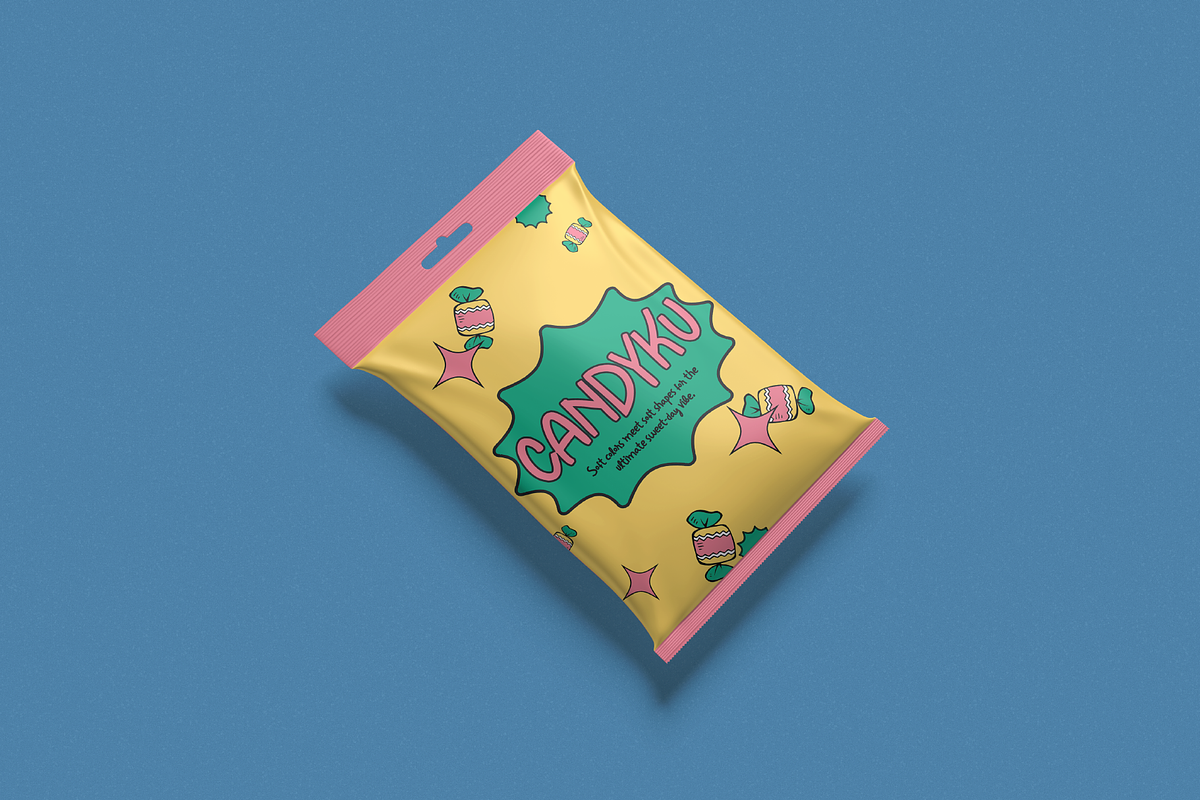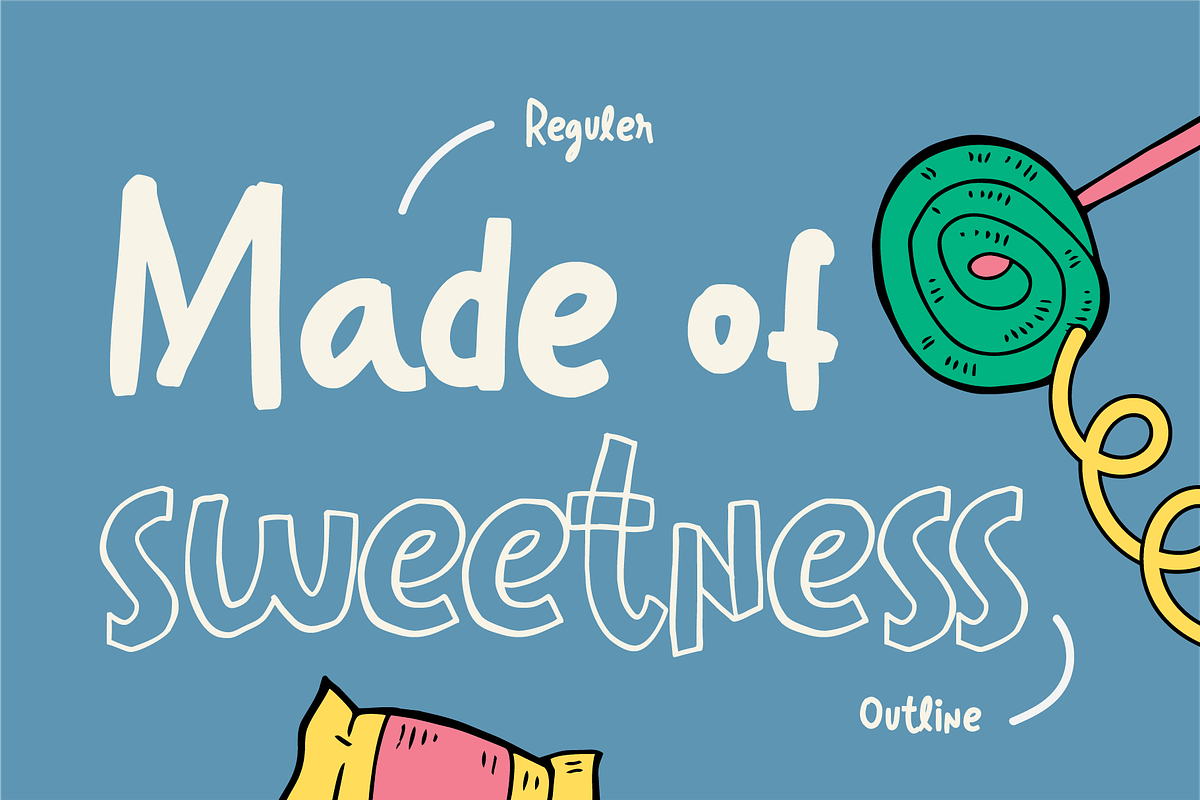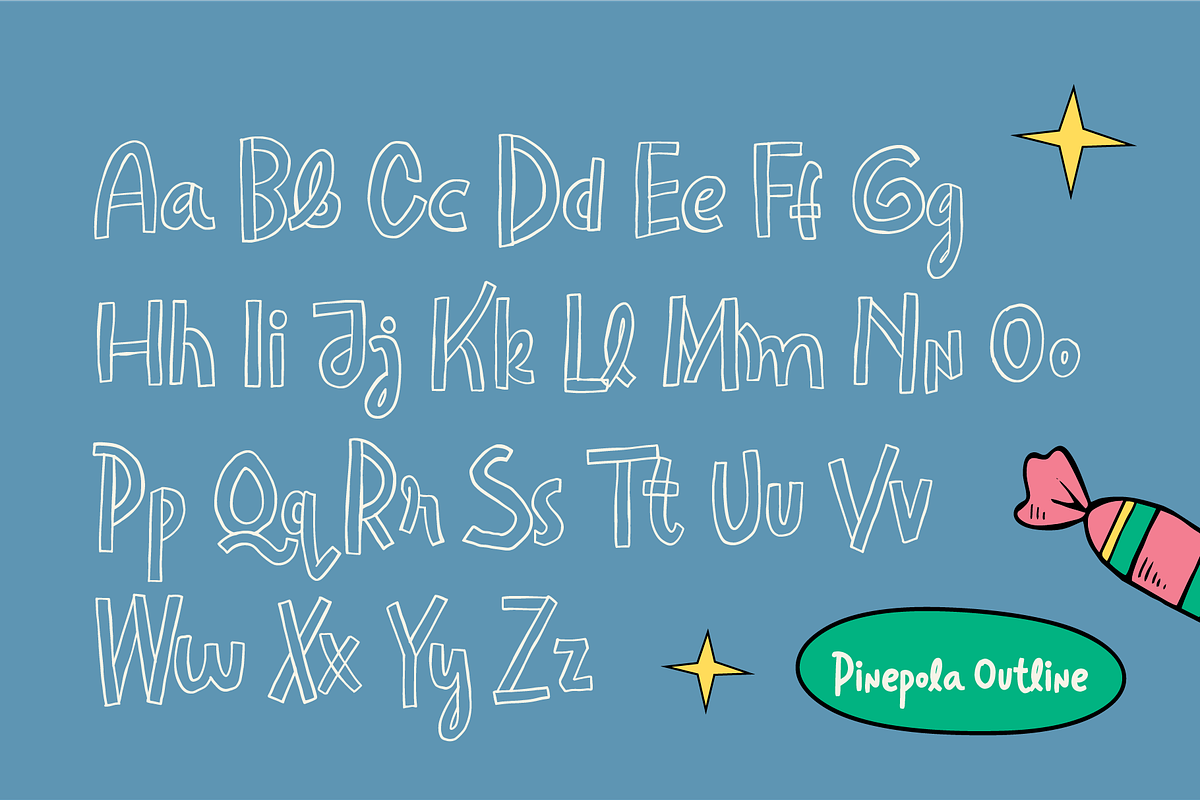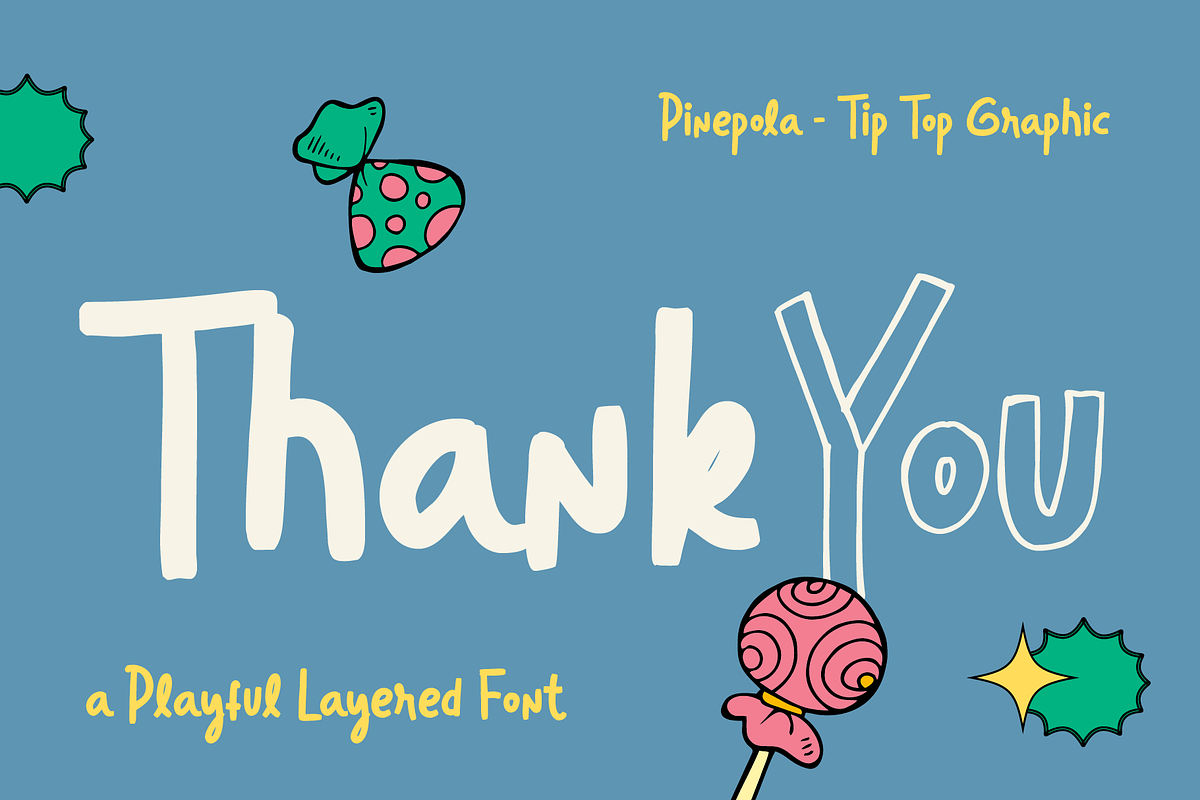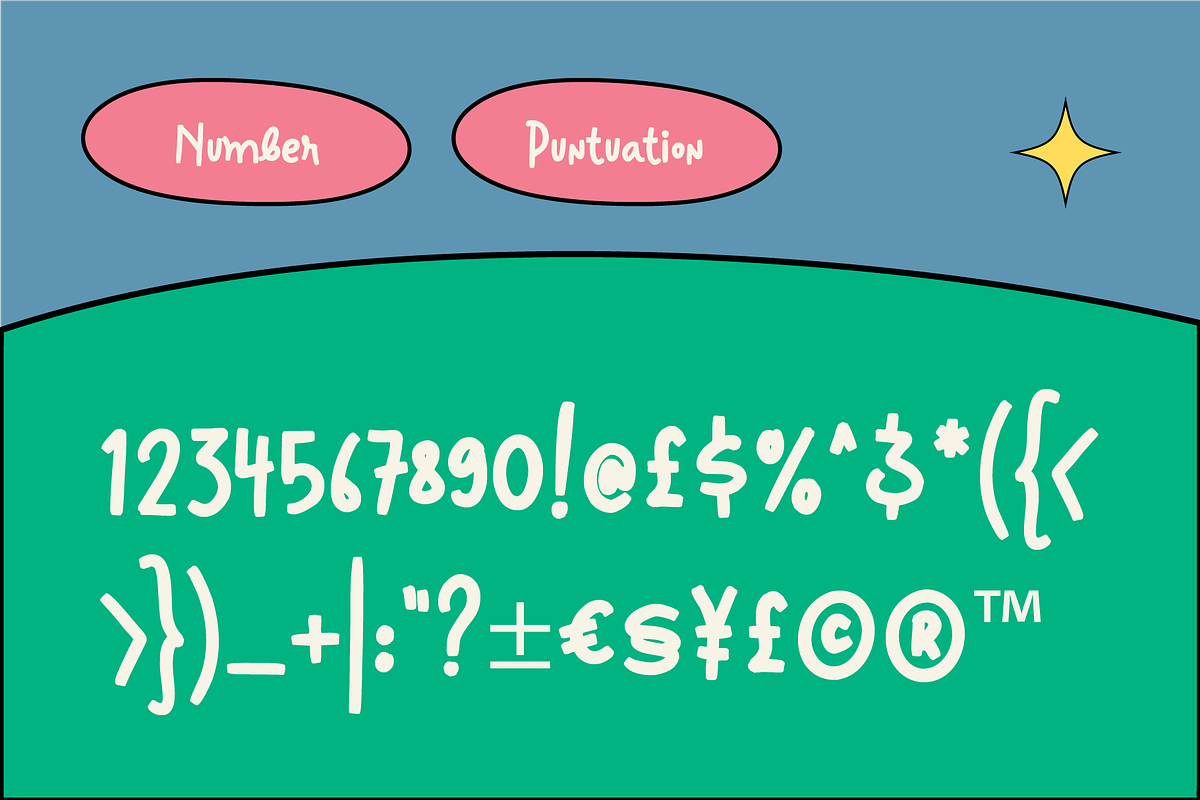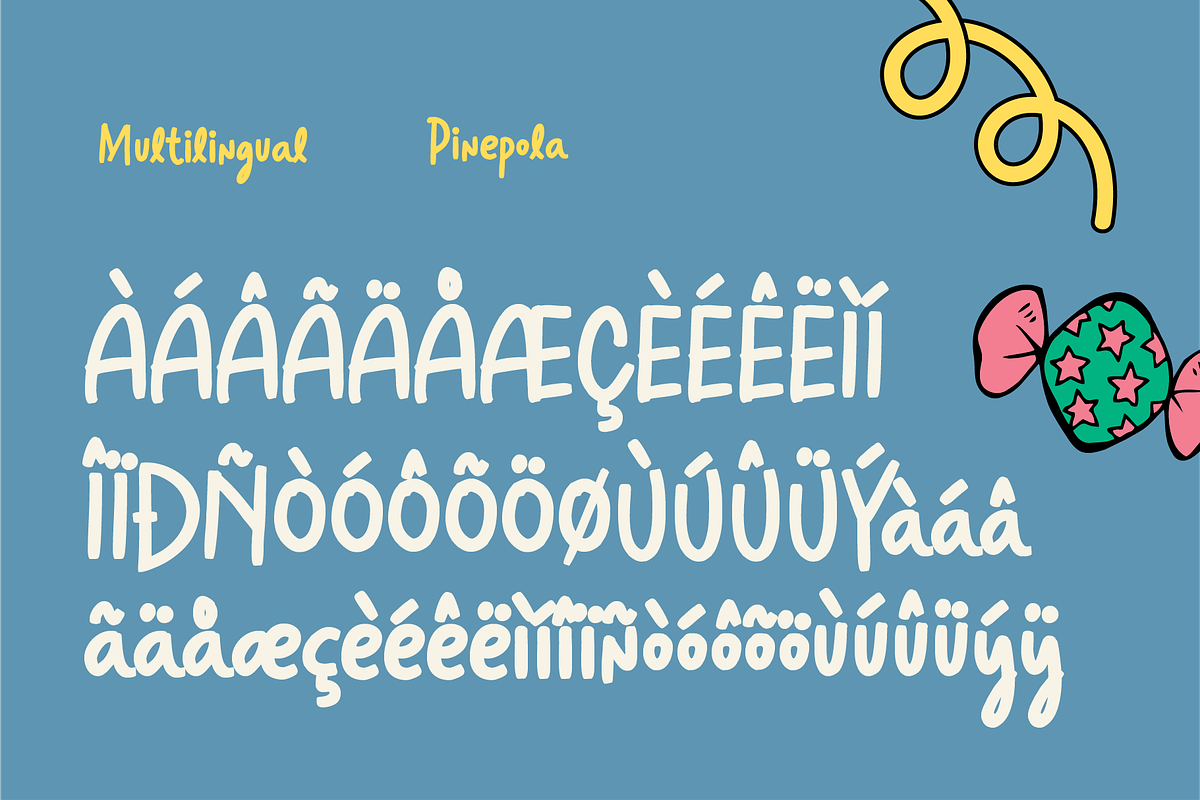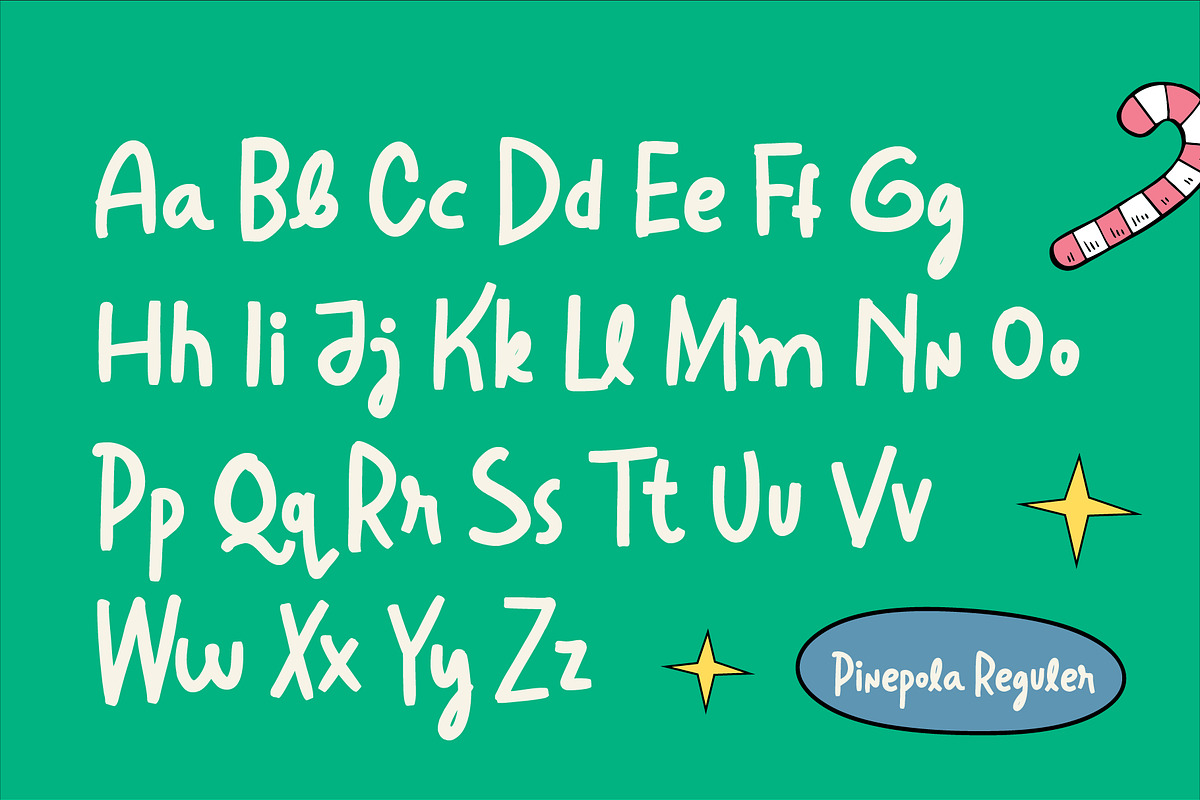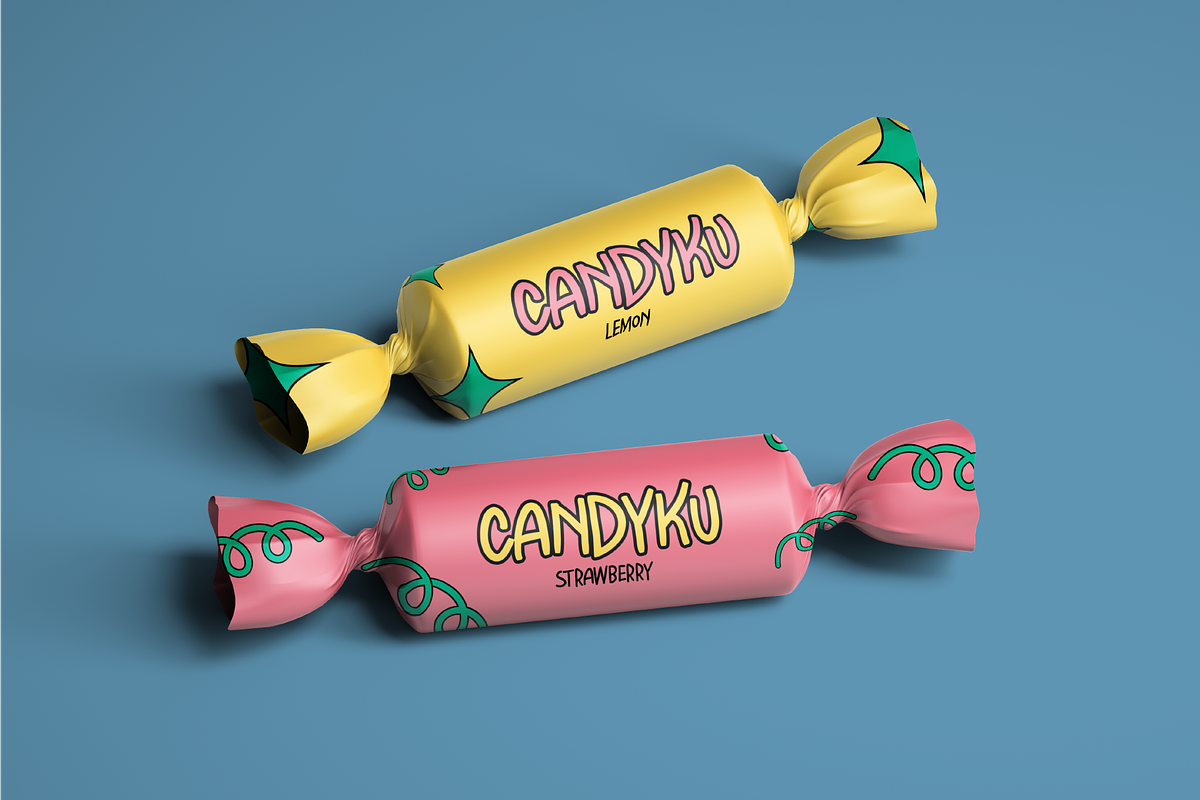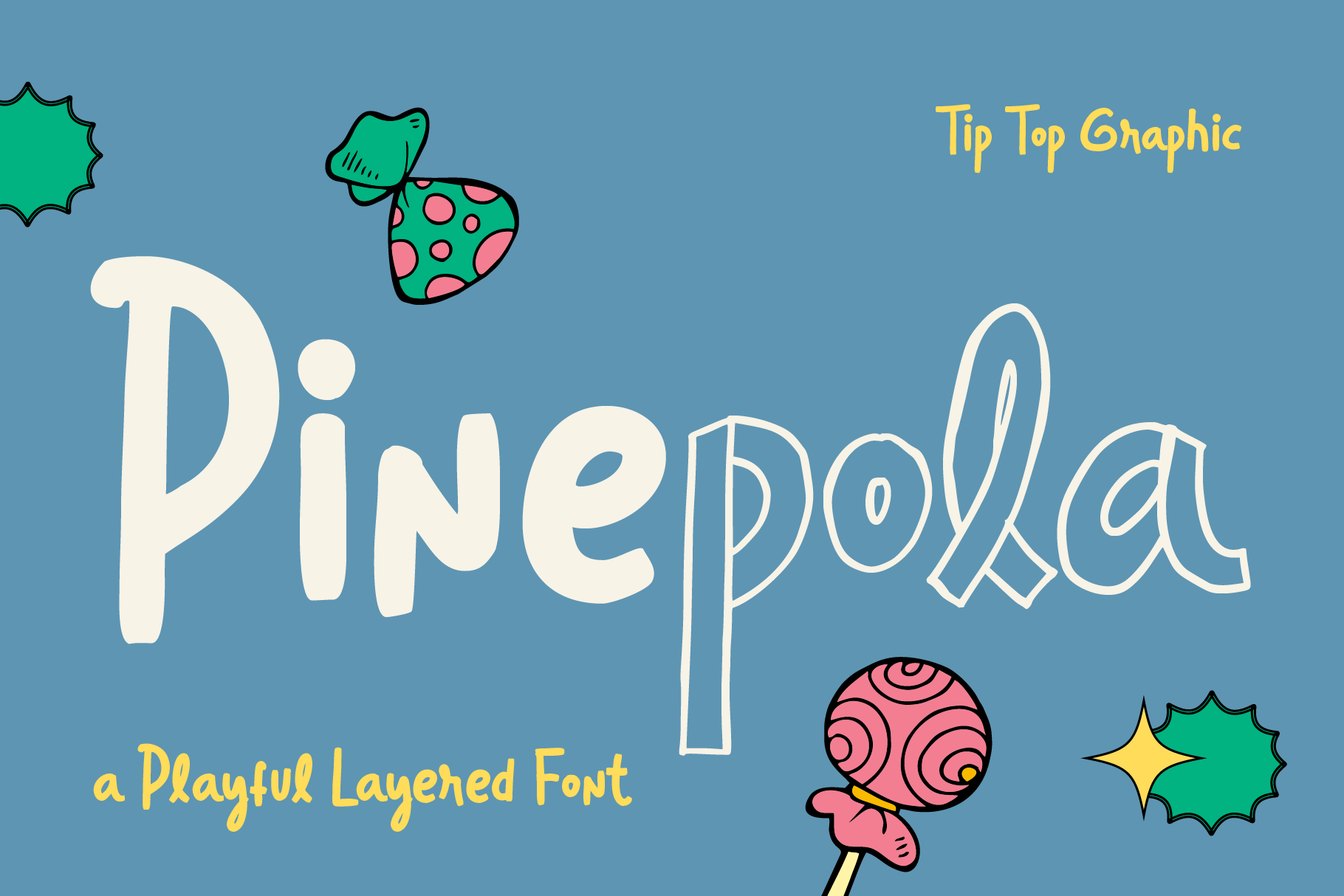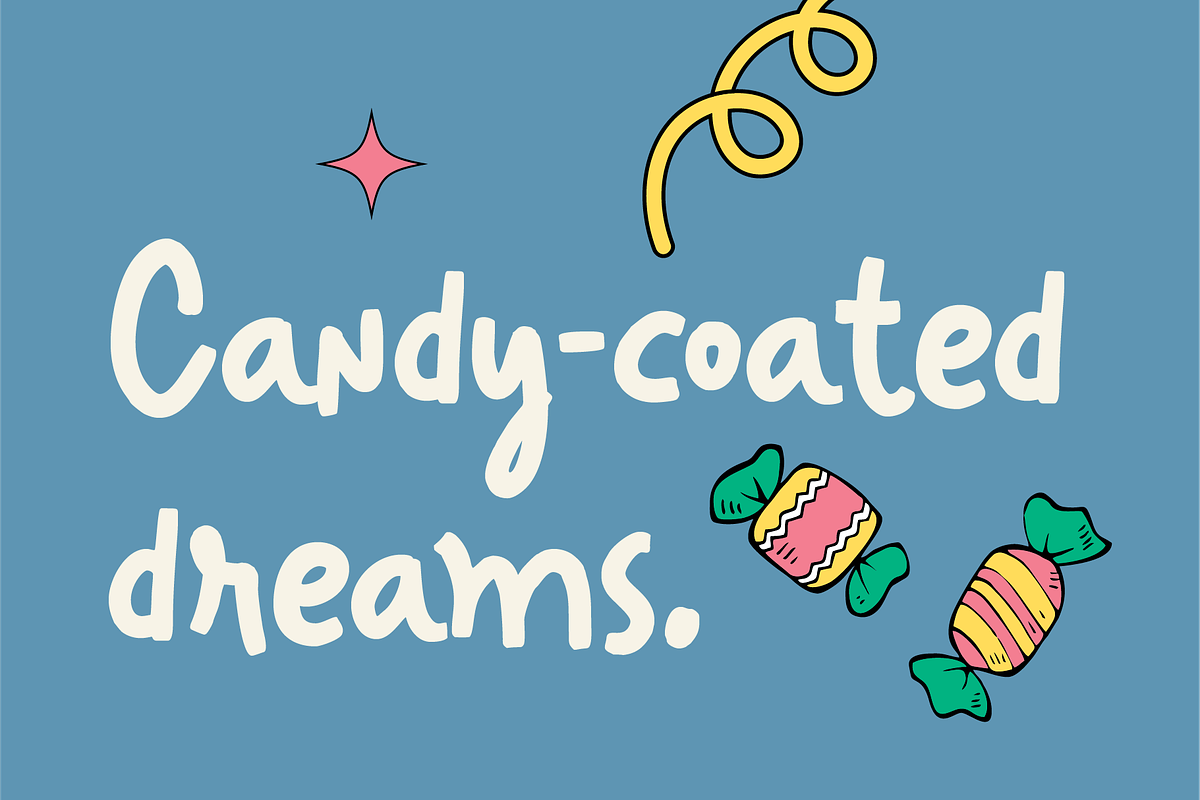
Pinepola – A Playful Layered Font
Pinepola – A Playful Retro Layered Font brings back the charm of vintage lettering with a fun, modern twist. Its bold shapes and layered design capture the nostalgic feel of retro signage, posters, and classic print styles. Mix and stack the layers to create vibrant, dimensional typography that stands out instantly.
Great for retro branding, posters, packaging, logos, stickers, and creative projects that need a warm, throwback personality. Pinepola combines vintage flair with playful character—perfect for designs that want to feel both nostalgic and fun.
Pinepola – A Playful Layered Font features:
- Regular & Outline
- Punctuation & Numbers